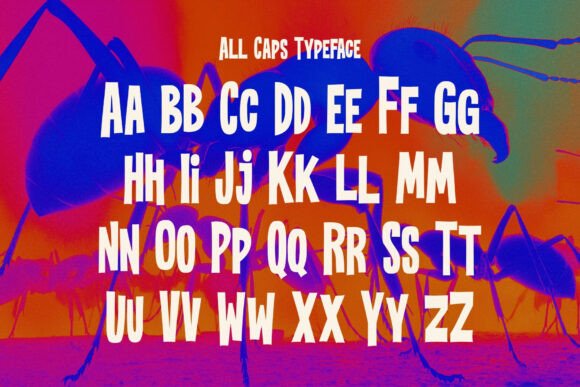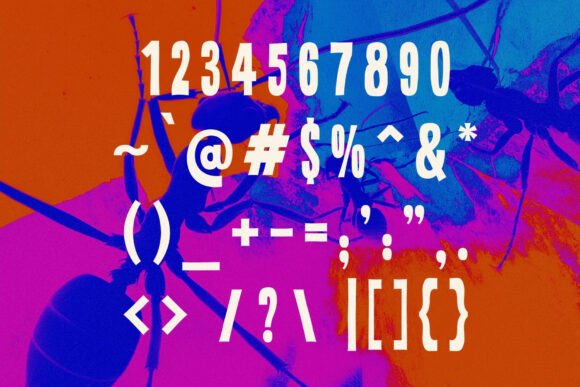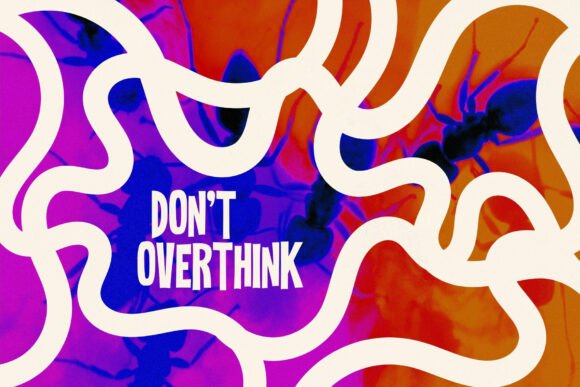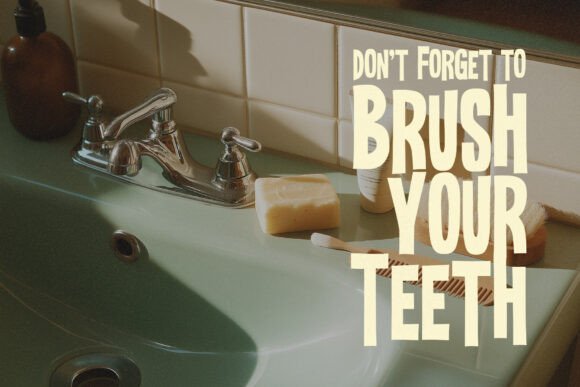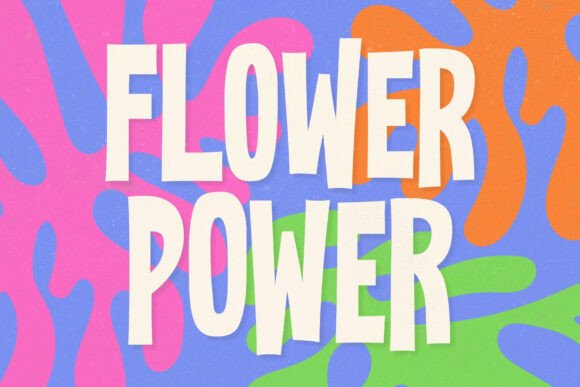
Step into the Golden Era of Design with Daydream Melody Font
Imagine yourself transported to a bygone era, where design was an art form that exuded elegance, sophistication, and playfulness. Welcome to the world of Daydream Melody, a retro-inspired mid-century modern sans serif font that embodies the spirit of the 1950s, 60s, and 70s. This charming typeface is designed to bring a touch of vintage flair to your designs, infusing them with personality, rhythm, and a dash of nostalgia.
The Inspiration Behind Daydream Melody
Daydream Melody draws inspiration from the expressive typography of the mid-20th century, an era renowned for its iconic design movements, including mid-century modern and retro futurism. The font’s creator sought to capture the essence of this bygone era, blending clean geometric structures with playful movement to create letterforms that are both bold and stylish.
Key Features of Daydream Melody
- Lively Curves and Confident Shapes: Daydream Melody boasts lively curves and confident shapes that give it a unique personality. The font’s letterforms are carefully crafted to convey a sense of movement and energy, making it perfect for designs that require a touch of dynamism.
- Unmistakable Vintage Flair: The font’s vintage charm is unmistakable, evoking memories of a bygone era when design was an art form. Daydream Melody’s retro-inspired aesthetic is sure to transport your designs to a bygone era, adding a touch of nostalgia and warmth.
- Clean Geometric Structure: Despite its playful nature, Daydream Melody features a clean geometric structure that provides a sense of balance and harmony. This makes it an excellent choice for designs that require a touch of sophistication and elegance.
Uses for Daydream Melody
Daydream Melody is a versatile font that can be used in a wide range of design projects, including:
- Eye-catching Packaging: Add a touch of vintage flair to your product packaging with Daydream Melody. The font’s playful nature and retro-inspired aesthetic make it perfect for brands looking to stand out on store shelves.
- Statement Posters: Create bold and eye-catching posters with Daydream Melody. The font’s confident shapes and lively curves make it perfect for designs that require a touch of drama and personality.
- Editorial Headlines: Add a touch of sophistication and elegance to your editorial designs with Daydream Melody. The font’s clean geometric structure and vintage charm make it perfect for magazine headlines, article titles, and more.
- Logos and Branding: Use Daydream Melody to create unique and memorable logos that capture the essence of your brand. The font’s playful nature and retro-inspired aesthetic make it perfect for brands looking to stand out in a crowded market.
- Album Covers and Music Branding: Add a touch of vintage flair to your music branding with Daydream Melody. The font’s nostalgic charm and playful nature make it perfect for album covers, music posters, and more.
- Café Branding and Menu Design: Create a unique and memorable brand identity for your café or restaurant with Daydream Melody. The font’s vintage charm and playful nature make it perfect for menu design, signage, and more.
- Social Media Graphics: Add a touch of personality and retro sophistication to your social media graphics with Daydream Melody. The font’s playful nature and vintage charm make it perfect for creating eye-catching graphics that stand out in crowded feeds.
Why Choose Daydream Melody?
So why choose Daydream Melody for your design projects? Here are just a few reasons:
- Authentic Vintage Energy: Daydream Melody is designed to capture the essence of a bygone era, providing your designs with an authentic vintage energy that’s sure to resonate with audiences.
- Unique Personality: The font’s playful nature and retro-inspired aesthetic give it a unique personality that’s sure to make your designs stand out.
- Versatility: Daydream Melody is a versatile font that can be used in a wide range of design projects, from packaging and posters to editorial designs and social media graphics.
In conclusion, Daydream Melody is a charming retro-inspired mid-century modern sans serif font that’s perfect for designers looking to add a touch of vintage flair to their designs. With its lively curves, confident shapes, and unmistakable vintage charm, this font is sure to bring warmth, groove, and timeless character to any project. So why wait? Step into the golden era of design with Daydream Melody and discover a world of creative possibilities.